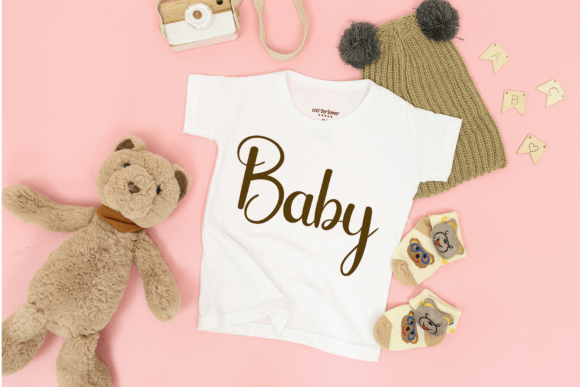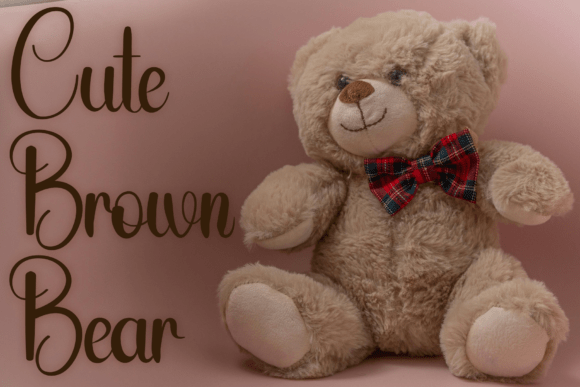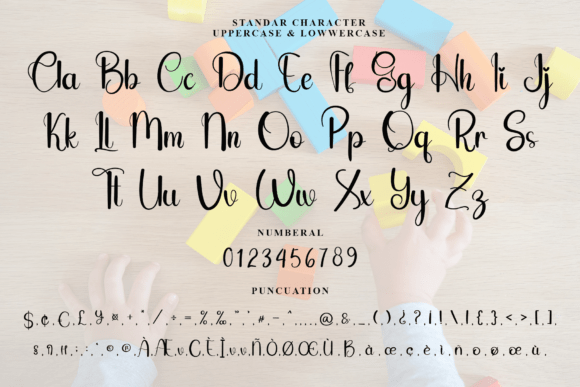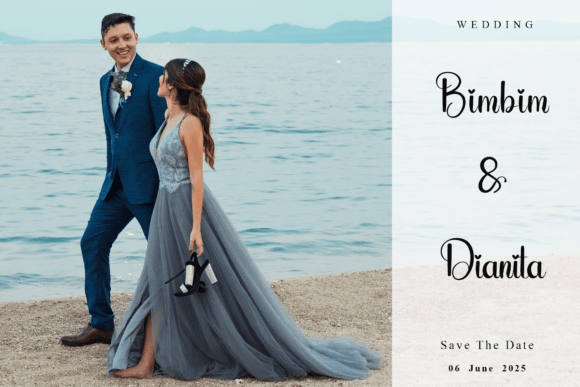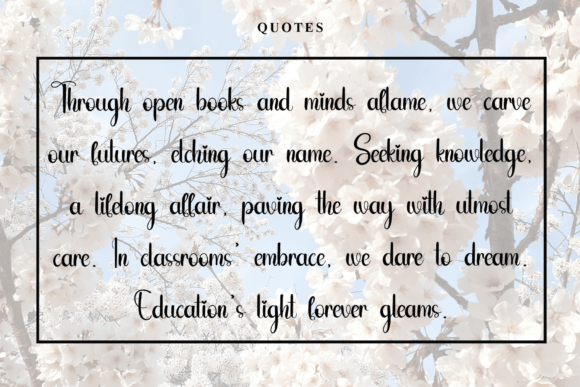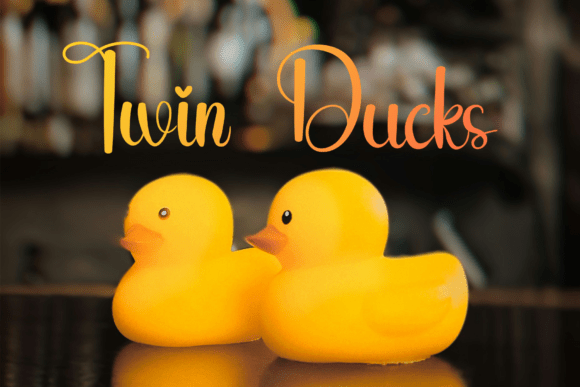
The Autism Font: A Sweet and Friendly Handwritten Delight
I’ll never forget the moment I stumbled upon the Autism Font while working on a project for a children’s book. I was on a tight deadline, and my usual go-to fonts just weren’t cutting it. The design needed something sweet, friendly, and approachable. That’s when I discovered Autism Font, and it instantly became my new best friend. Its natural, unique style seemed to bring the characters to life, and I knew I had found the perfect fit.
- ✨ Unique and friendly style: Autism Font has a distinct, handwritten charm that sets it apart from other fonts.
- ✅ Highly versatile: It can be used for a wide range of designs, from children’s books to greeting cards, and even social media graphics.
- 🌈 Emotional connection: The font’s warm and approachable personality helps create an instant connection with your audience.
While Autism Font is an amazing addition to any design project, there are a few things to keep in mind:
- 🤔 Legibility at small sizes: Like many handwritten fonts, Autism Font can become a bit tricky to read at very small sizes. Make sure to test it at different sizes to ensure it’s still legible.
- ⚠️ Overuse: While the font is incredibly versatile, using it excessively can make your design feel overwhelming. Balance is key.
- Experiment with OpenType features like ligatures and stylistic alternates to add some flair to your text.
The Designer Inspiration Behind Autism Font
Autism Font was created with the intention of producing a friendly, approachable typeface that could be used across various design projects. The designer aimed to craft a font that felt both personal and relatable, making it perfect for projects that require a touch of warmth and personality.
Q: What makes Autism Font unique?
A: Its natural, unique style and friendly personality make it stand out from other fonts.
Q: Is Autism Font suitable for body text?
A: While it’s primarily designed for display purposes, Autism Font can be used for body text in certain contexts. However, its readability at smaller sizes may vary.